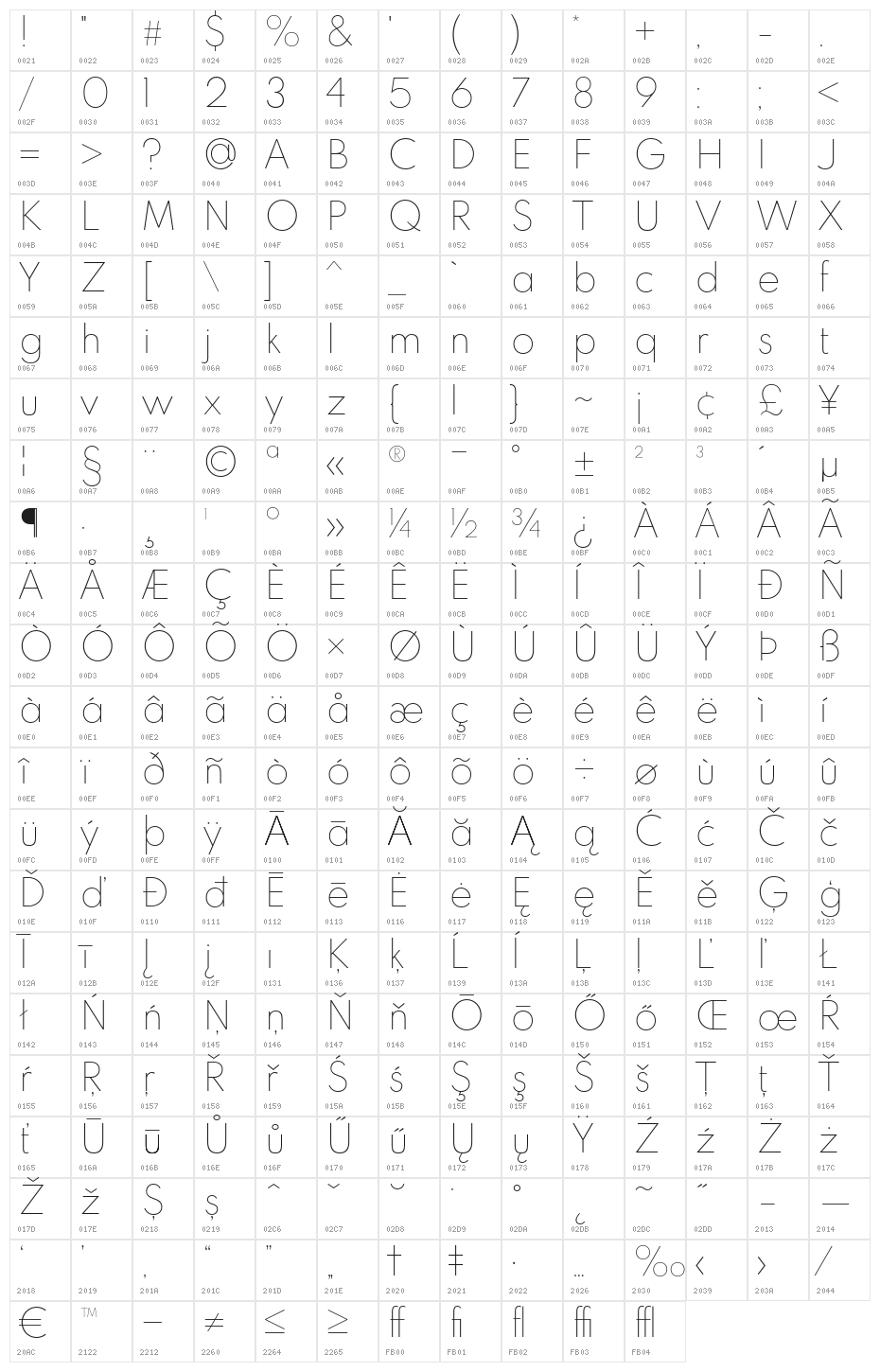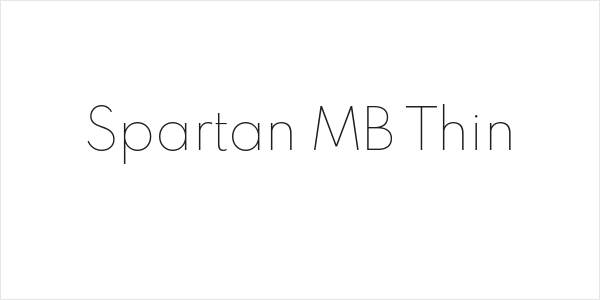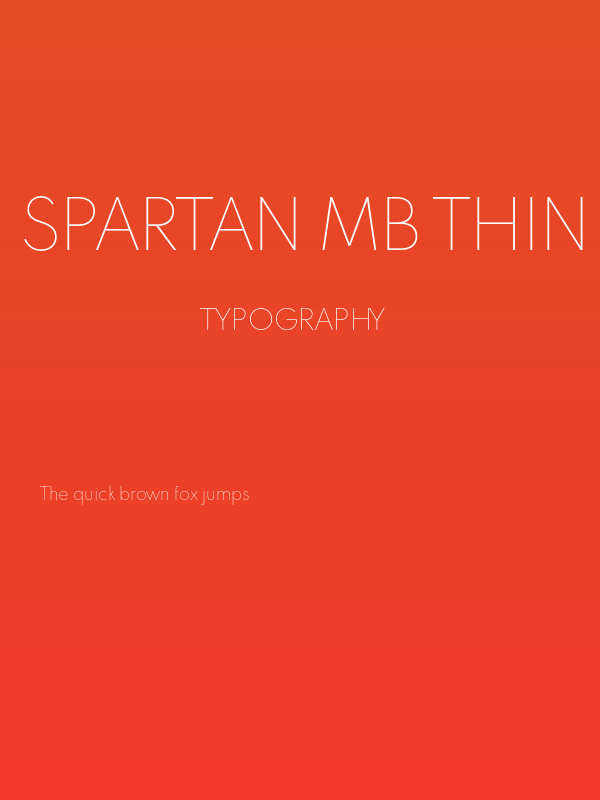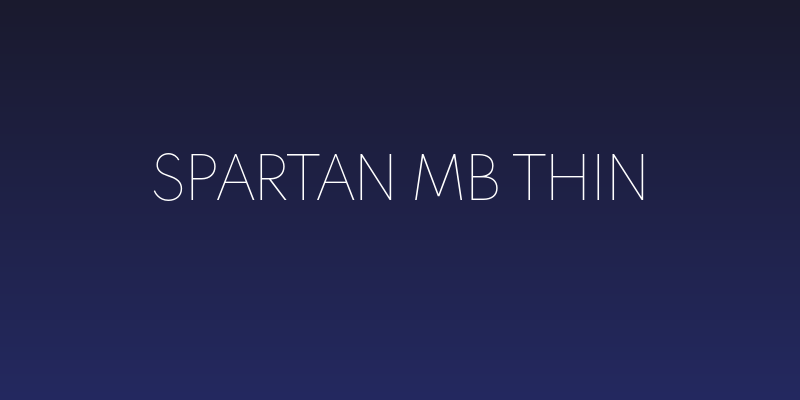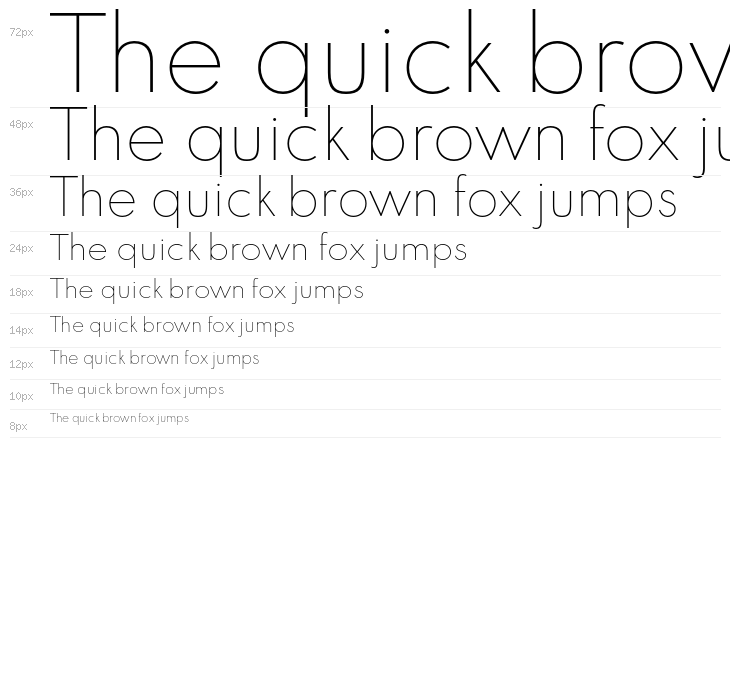
Spartan MB Thin Font
Spartan MB Thin Description
This font features a clean and minimalist design, characterized by its thin and elegant lines. The characters are evenly spaced, providing a harmonious and balanced appearance. The uppercase letters are slightly taller than the lowercase, maintaining a consistent width throughout. Numbers and special characters are designed with the same thin strokes, ensuring uniformity across all glyphs. The overall look is modern and sophisticated, making it suitable for contemporary design projects.